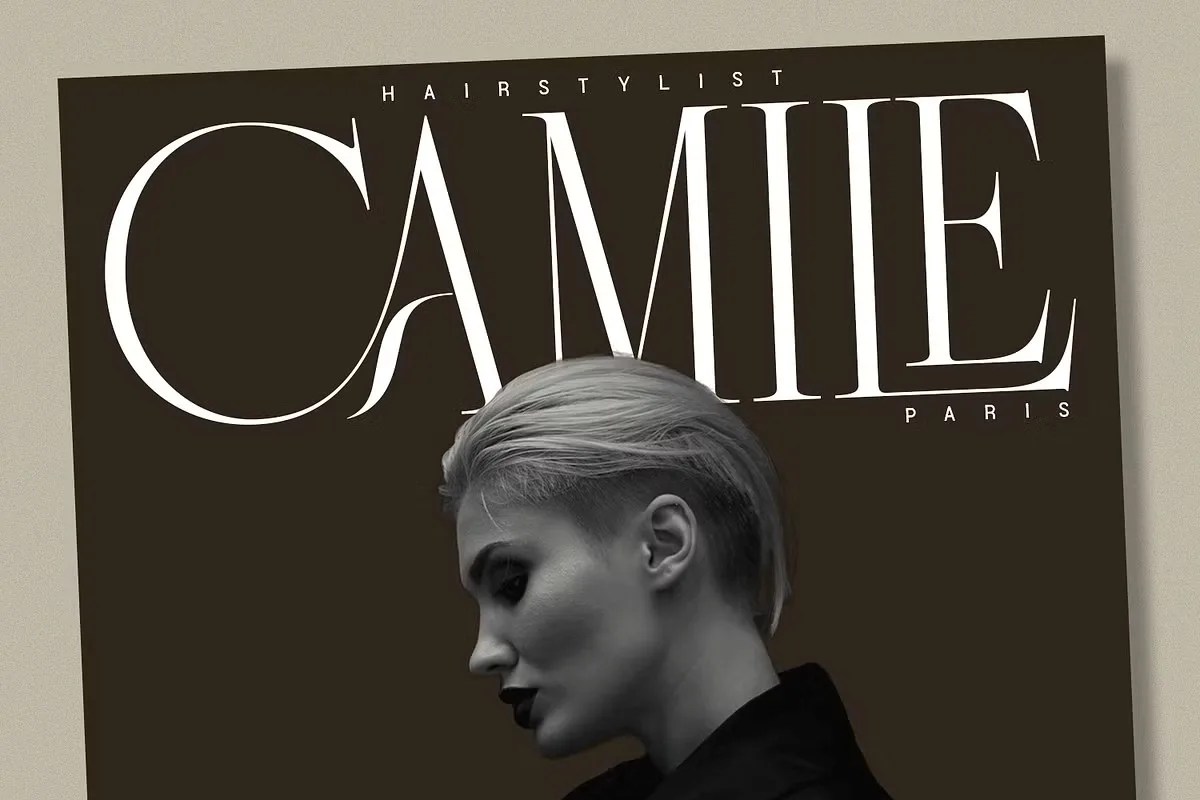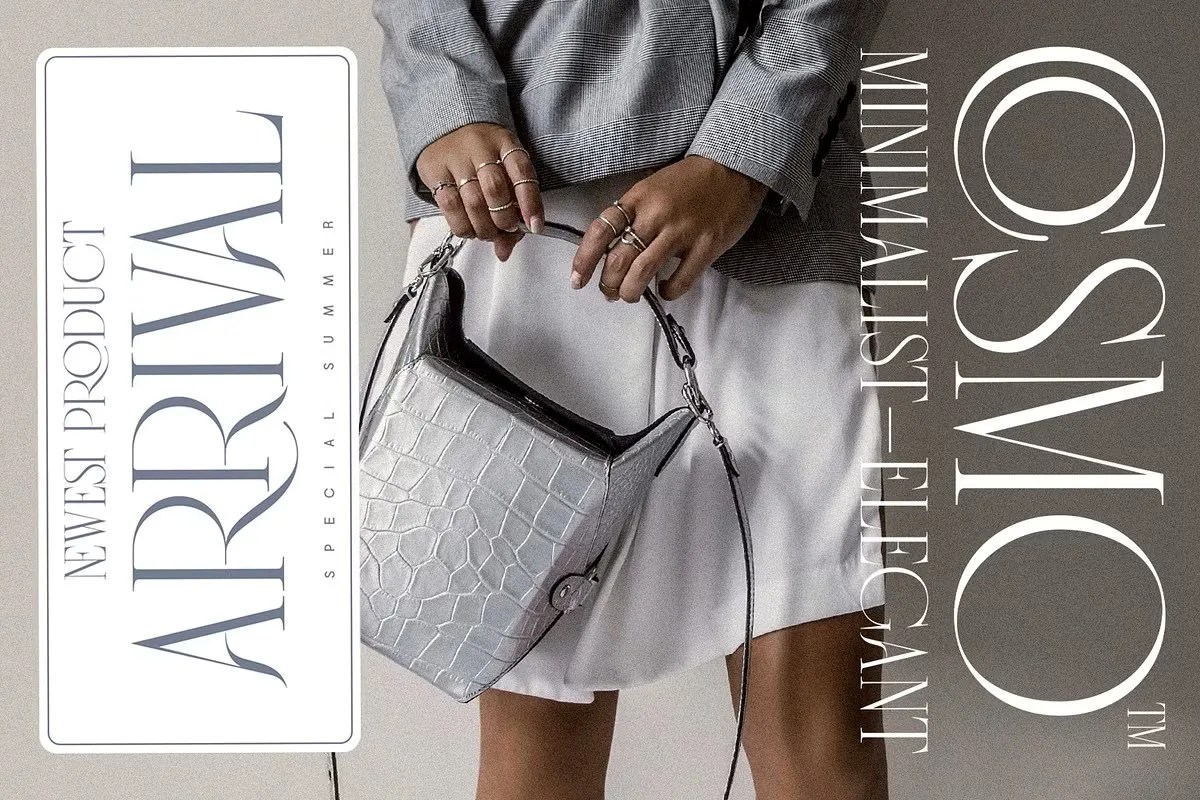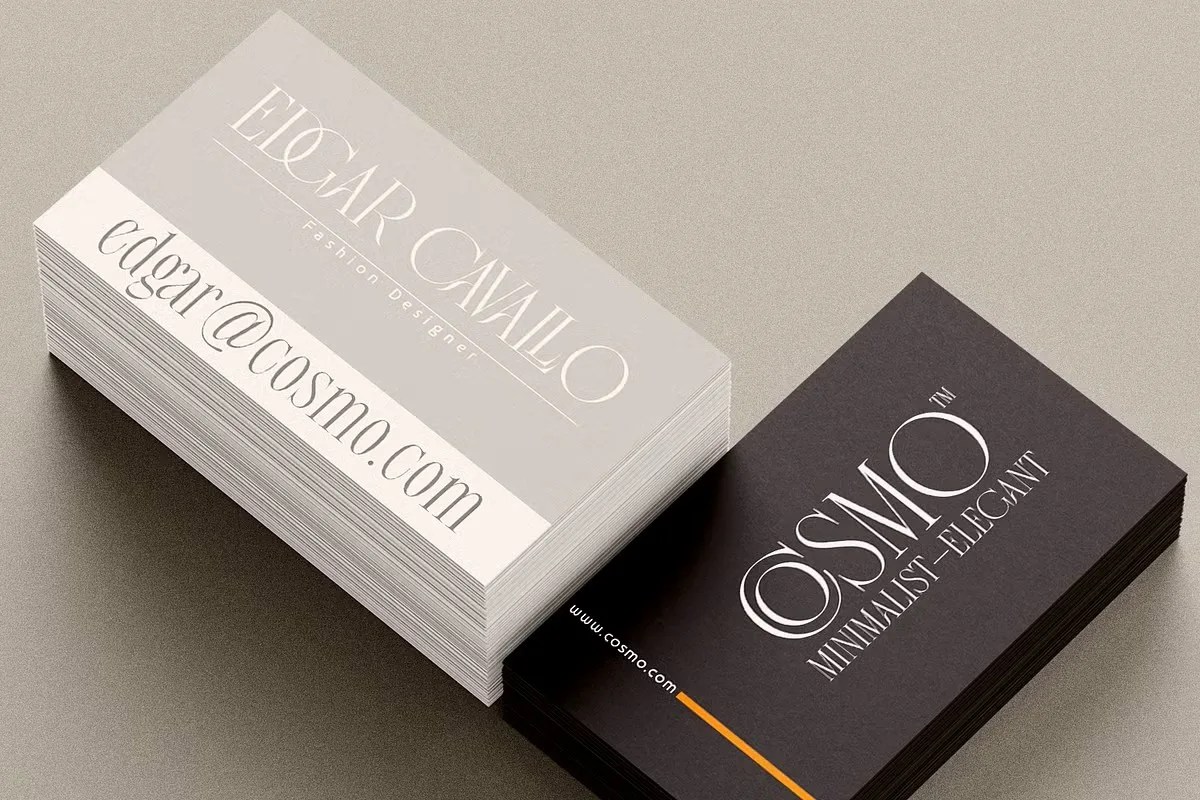
Chiro Serif Font, brilliantly crafted by Sign Studio, offers designers a remarkable opportunity to infuse their personal artwork with timeless elegance. Rather than settling for default, uninspired typography, you can immediately elevate your creative layouts using this sophisticated serif typeface. Consequently, this refined typographic approach commands attention and instills a sense of prestige within your visual communication. Ultimately, incorporating this exquisite font into your design toolkit enhances your artistic expression and leaves a lasting impression on your audience.
Furthermore, achieving perfect typographic harmony remains essential when you develop engaging editorial layouts, elegant event invitations, or striking personal branding. This specific typeface delivers exceptional visual clarity by combining delicate, classic serif structures with a clean, contemporary aesthetic. When you apply these meticulously designed letterforms to your primary headers or secondary body text, the font naturally guides the reader’s eye smoothly across the page. As a result, observers instantly recognize the premium quality and thoughtful attention to detail embedded in your digital or printed design. Whether you create a minimalist blog interface, an artistic poster, or a sophisticated digital zine, this asset ensures your typographic message resonates powerfully.
• Elegant and refined serif characters that blend classic styling with modern readability.
• Perfectly suited for editorial designs, wedding invitations, and personal branding.
• Exceptional visual clarity ensuring legibility across both digital screens and printed materials.
• Meticulously balanced letter spacing and kerning for instant typographic harmony.
• Instantly adds a sophisticated, premium aesthetic to your non-commercial portfolios.